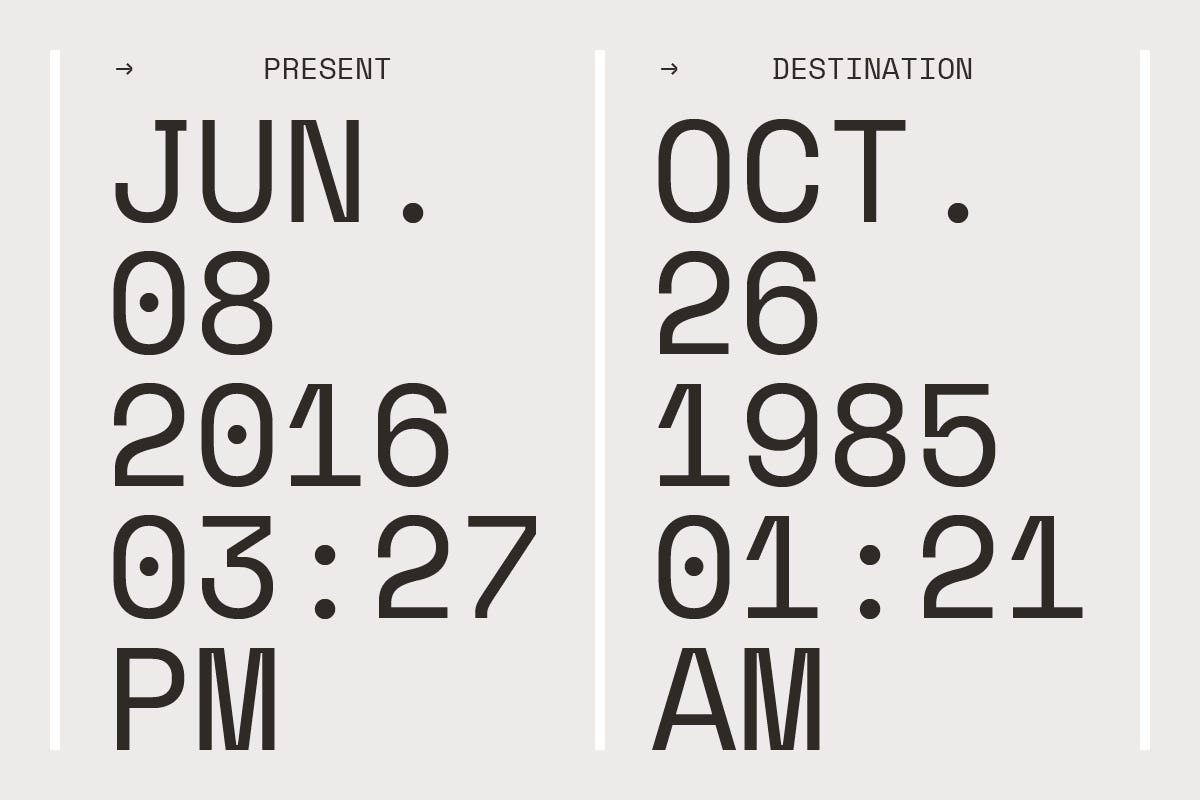
What Are Monospace Fonts
What Are Monospace Fonts. They are useful useful when displaying tabular data (like in a spreadsheet) and you want the columns to line up. Monospaced characters have a fixed width, or the same amount of horizontal space (including punctuation marks, signs, and symbols).
Z y m m bitstream vera sans mono bitstream 4 styles. This category includes monospaced, duospaced, typewriter, and facsimile fonts. Z y m m anonymous mark simonson 1 styles.
Courier New Is Also The Standard Font For Movie Screenplays.
Monospaced characters have a fixed width, or the same amount of horizontal space (including punctuation marks, signs, and symbols). Monospaced typefaces usually bring to mind typewriters and computer programming, however, they can be a perfect choice for designers looking for a sparse, minimal and “undesigned” feel. ← view all the lists or check out the top 10 rounded fonts →.
Monospace Font Is Also Known As Typewriter Font Which Is Also Generated In This Website.
Monospaced fonts are ideal for hackers, coders and the lovers of ascii art, insisting on a font set with a fixed character width for absolute symmetry. High / very high designer/foundry: Monospace fonts are used in code editors and science periodicals, in addition to many others.
Courier New Is Often Used With Coding Displays, And Many Email Providers Use It As Their Default Font.
However, it was not very good for readability of texts. Download ttf (offsite) z y m m audimat mono smeltery 9 styles. You can also download free monospace font.